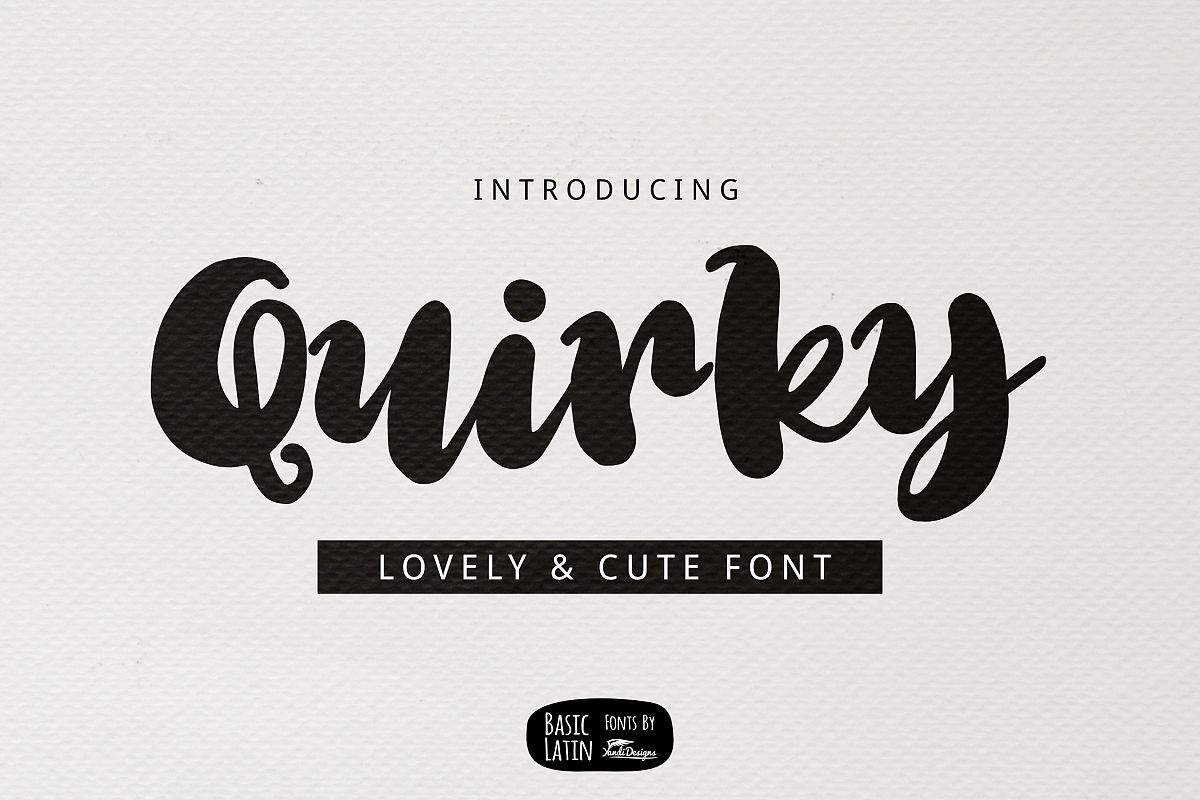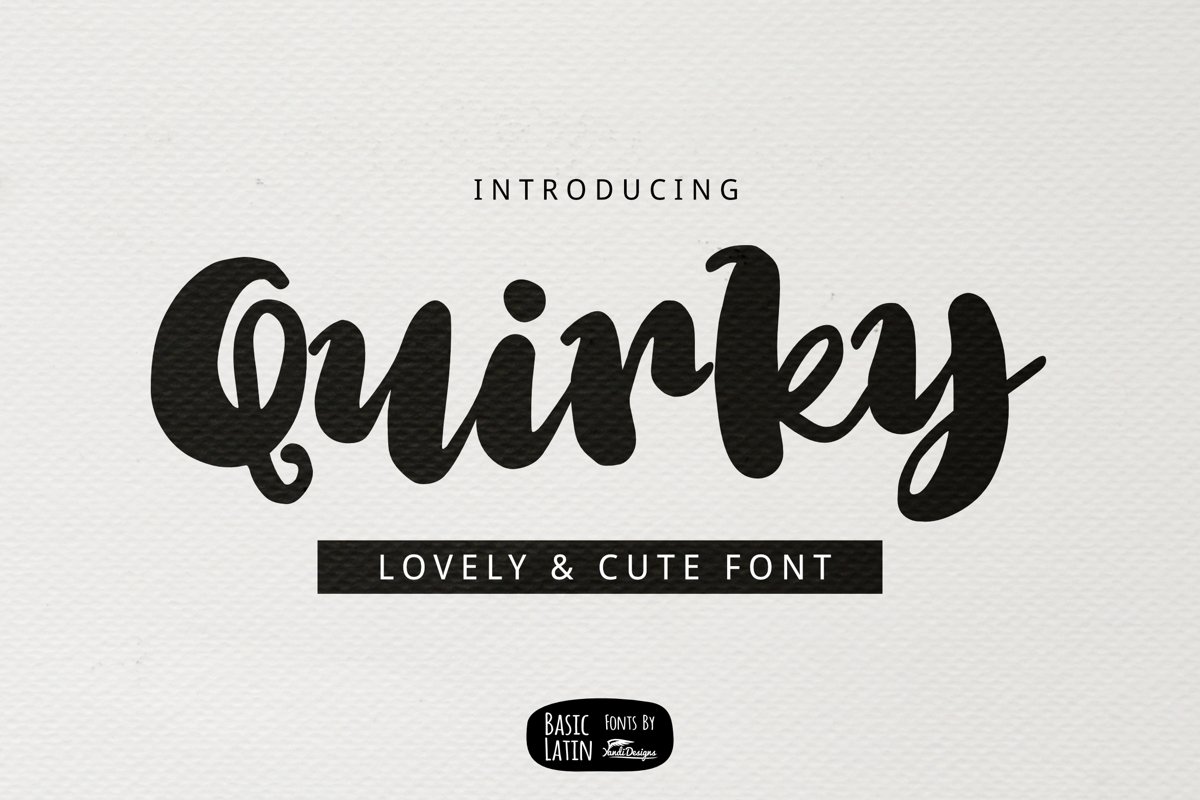
Created By YandiDesigns
Quirky Font
Quirky font is simple beautiful multipurpose handmade font , suitable for many project children book, quotes, logo , heading , title etc.